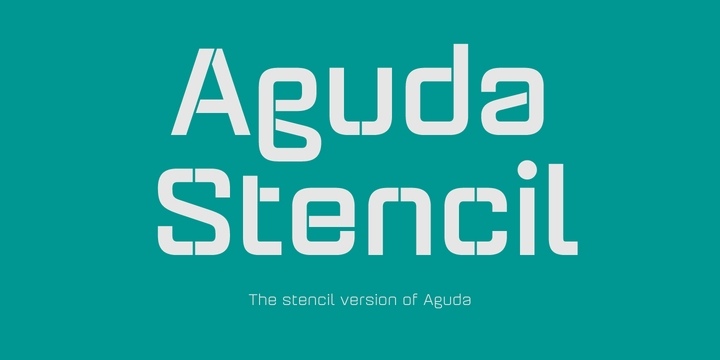
Aguda Stencil Font
The Aguda Stencil Font is a bold and powerful typeface with a distinctive, industrial feel. Its unique stencil cuts give it a strong visual identity, making it a perfect choice for projects that need to make a statement. This font is excellent for headlines, poster design, brand logos for rugged or modern companies, and packaging for products that require a tough, no-nonsense aesthetic. The Aguda Stencil Font's geometric and blocky letterforms also work great for t-shirt designs and striking social media graphics that demand attention.
What makes the Aguda Stencil Font so exciting is its raw, unpolished energy. The deliberate breaks in each character give it a handcrafted, slightly rebellious feel that sets it apart from traditional fonts. This isn't just a font; it's a piece of design that communicates strength, modernity, and a touch of urban grit. Its powerful presence ensures that your message is not just seen, but felt, making it an invaluable tool for designers who want to create bold, memorable visual experiences.
The Aguda Stencil family includes a full set of uppercase letters, numbers, and punctuation, ensuring you have everything you need to create a complete and cohesive design. While it is primarily designed as a display font, its clean lines and clear structure maintain a surprising level of readability, even in complex layouts. The font is available in a versatile format that is compatible with most design software, making it easy to incorporate into your workflow.